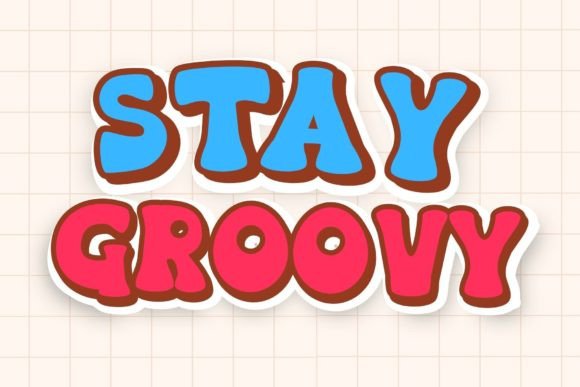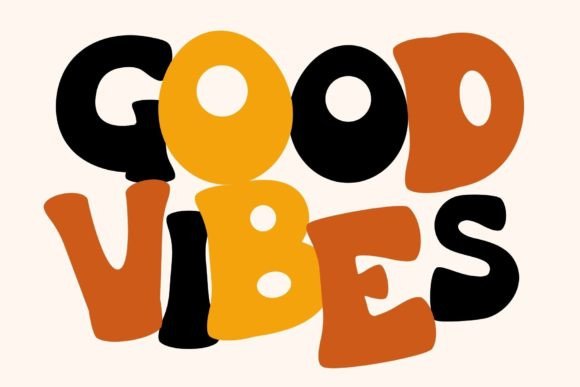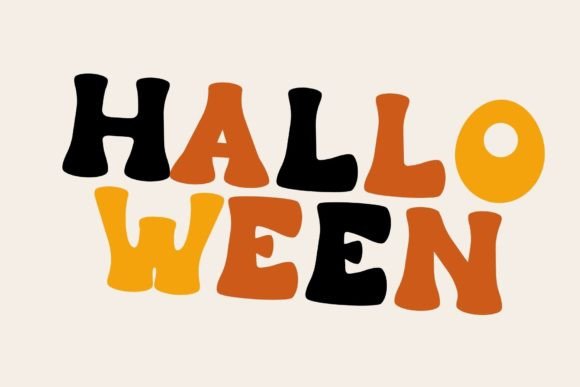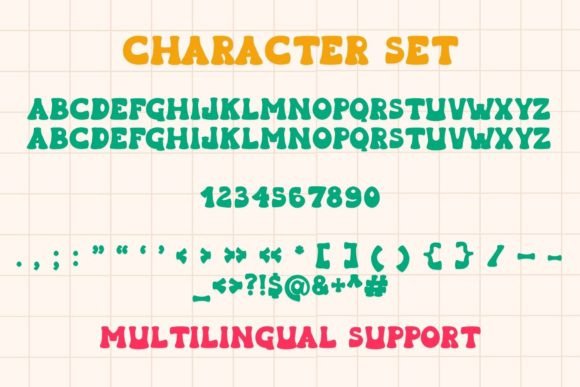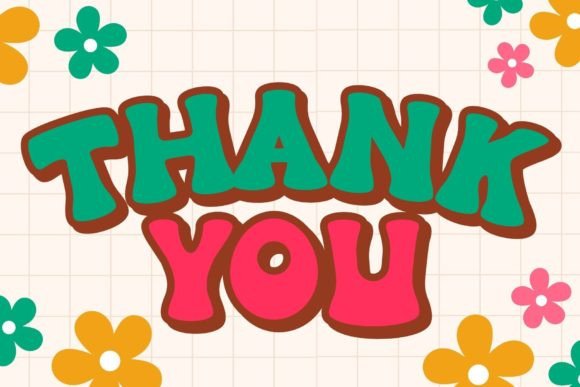
Introduction to Rainbow Night Font
Rainbow Night is a retro groovy display font.
It embodies playfulness and authenticity and is the perfect choice for all your favorite projects such as blog posts, logos, branding, ads, invitations, greeting cards, planners, photo albums, decorations, and more Add it to any of your designs, and enjoy the results.
Key Features of Rainbow Night Font
Why Choose Rainbow Night Font?